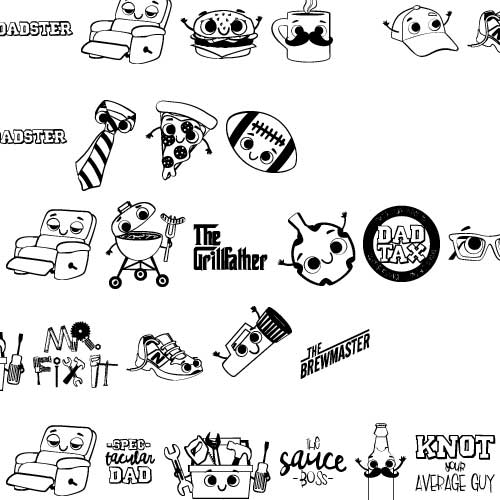
DB Dad Tok - DB
This adorable doodle doodlebat font features 26 images and nick names perfect for Father's day, cards, crafts, gifts, planner stickers, scrap book pages, decor and more!